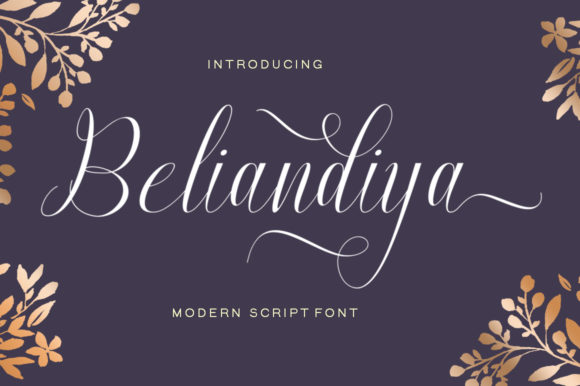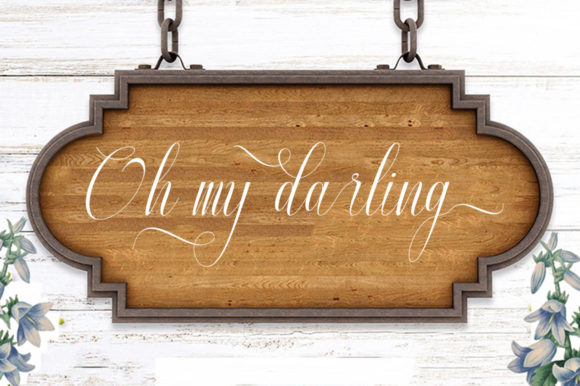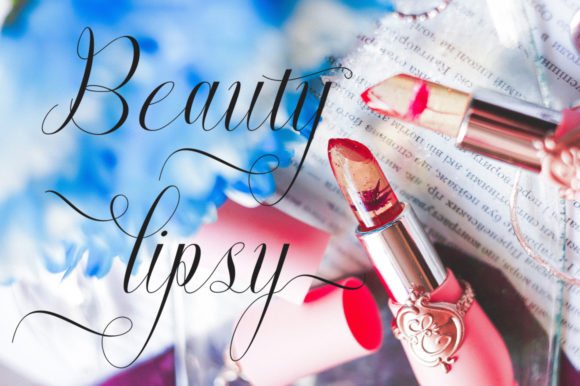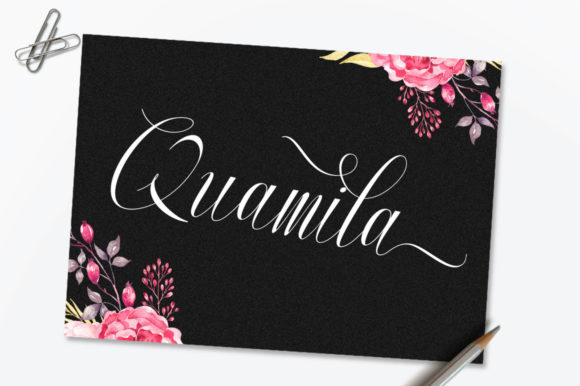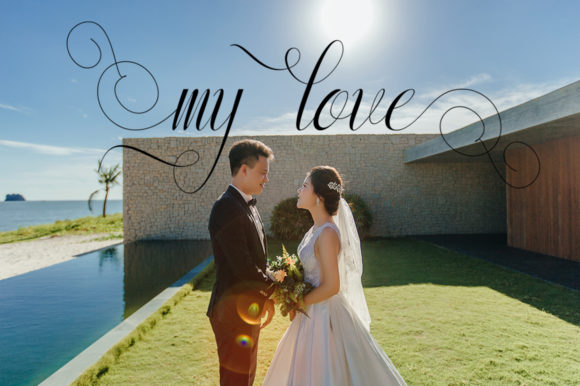
Beliandiya Font
About Beliandiya Font
Beliandiya is a modern and stylish script calligraphy font. Use this handwritten font to achieve an exquisite, yet subtle look and maximum versatility.